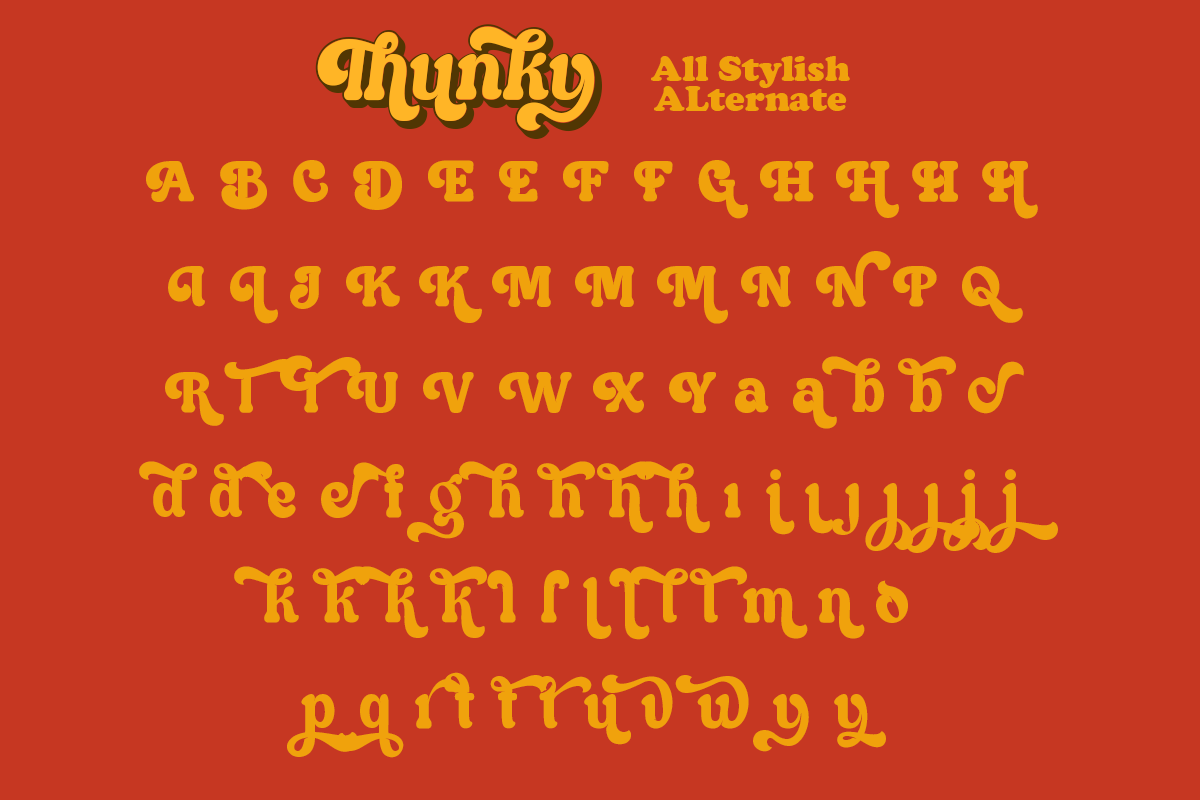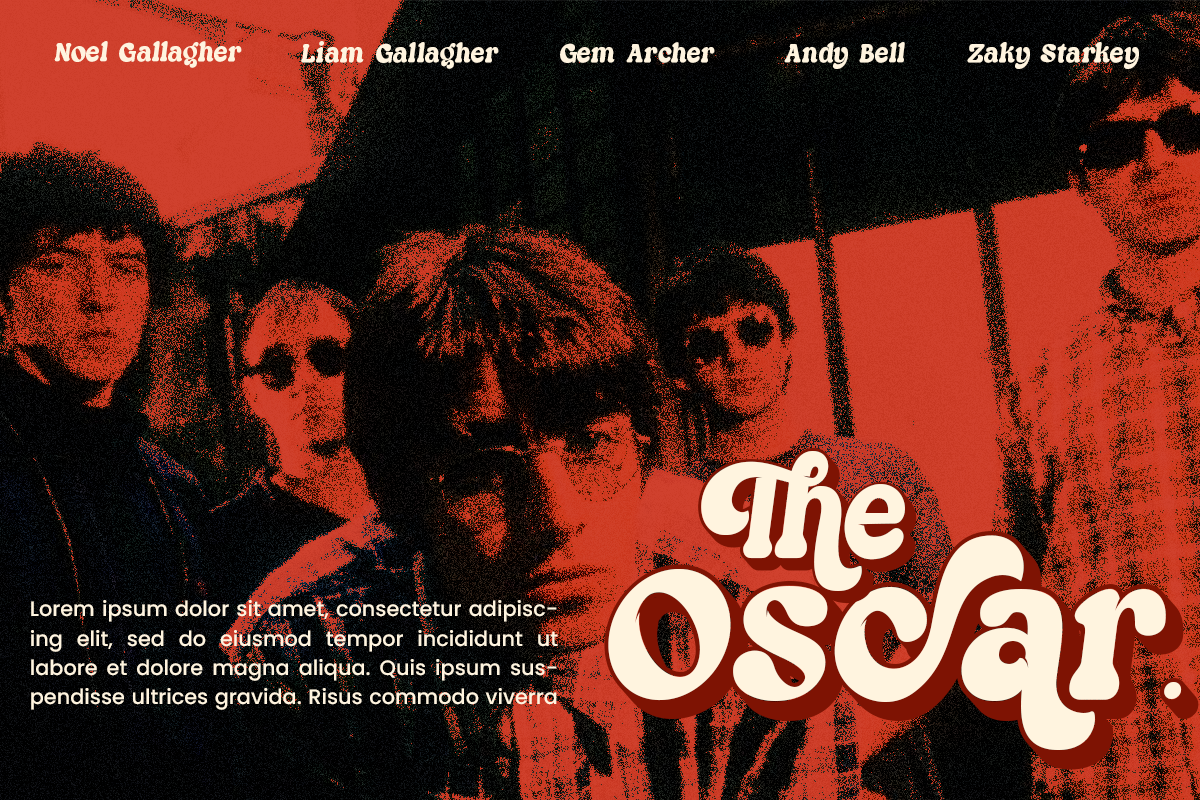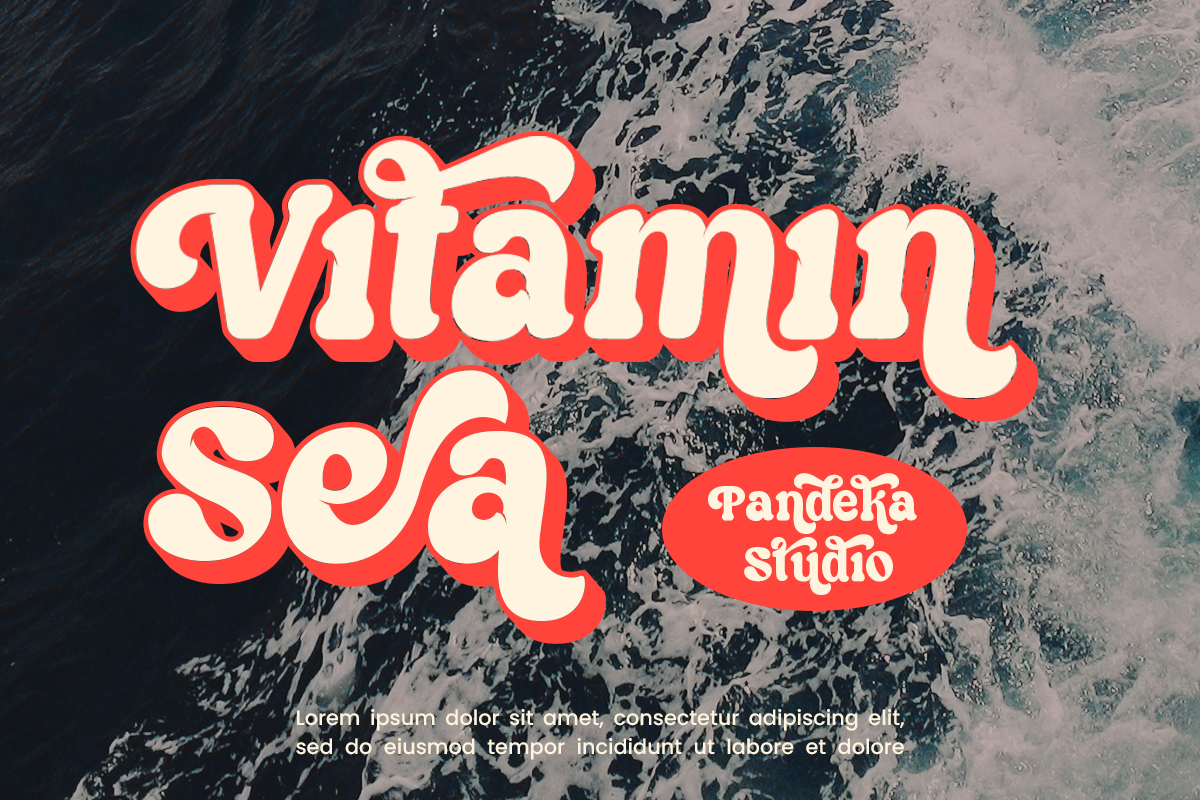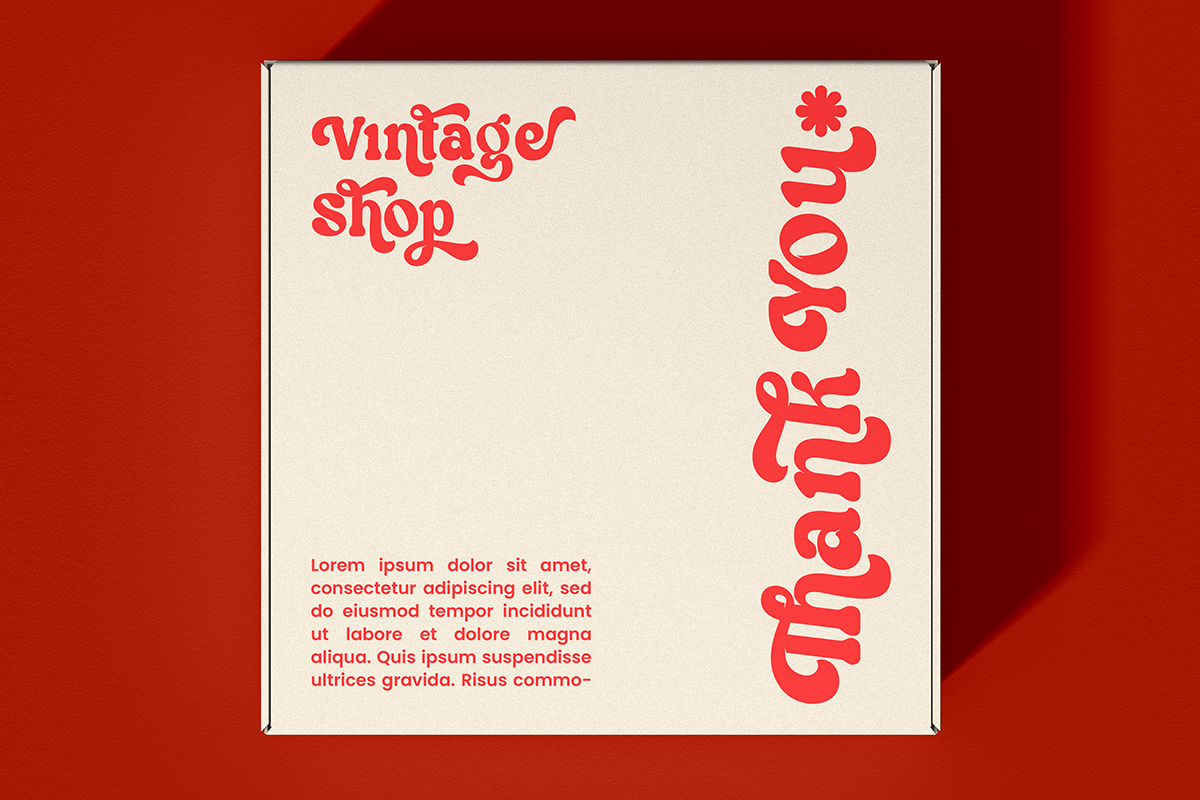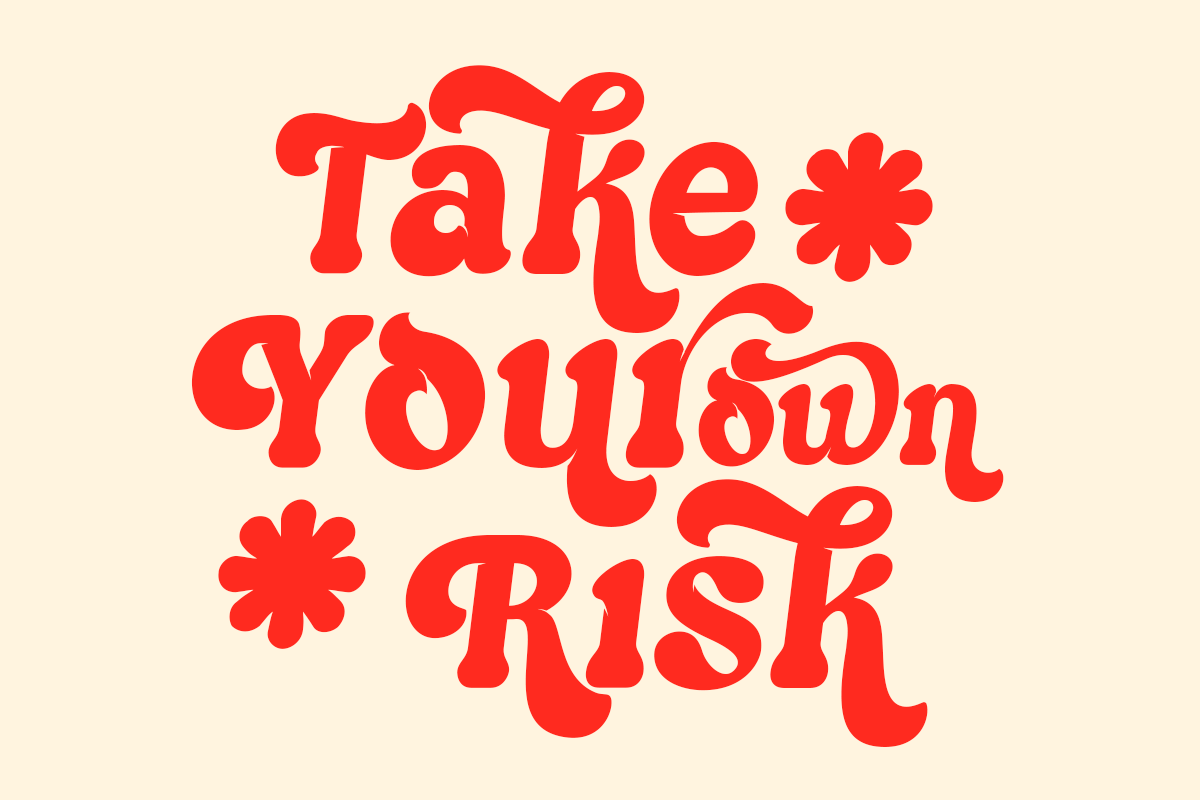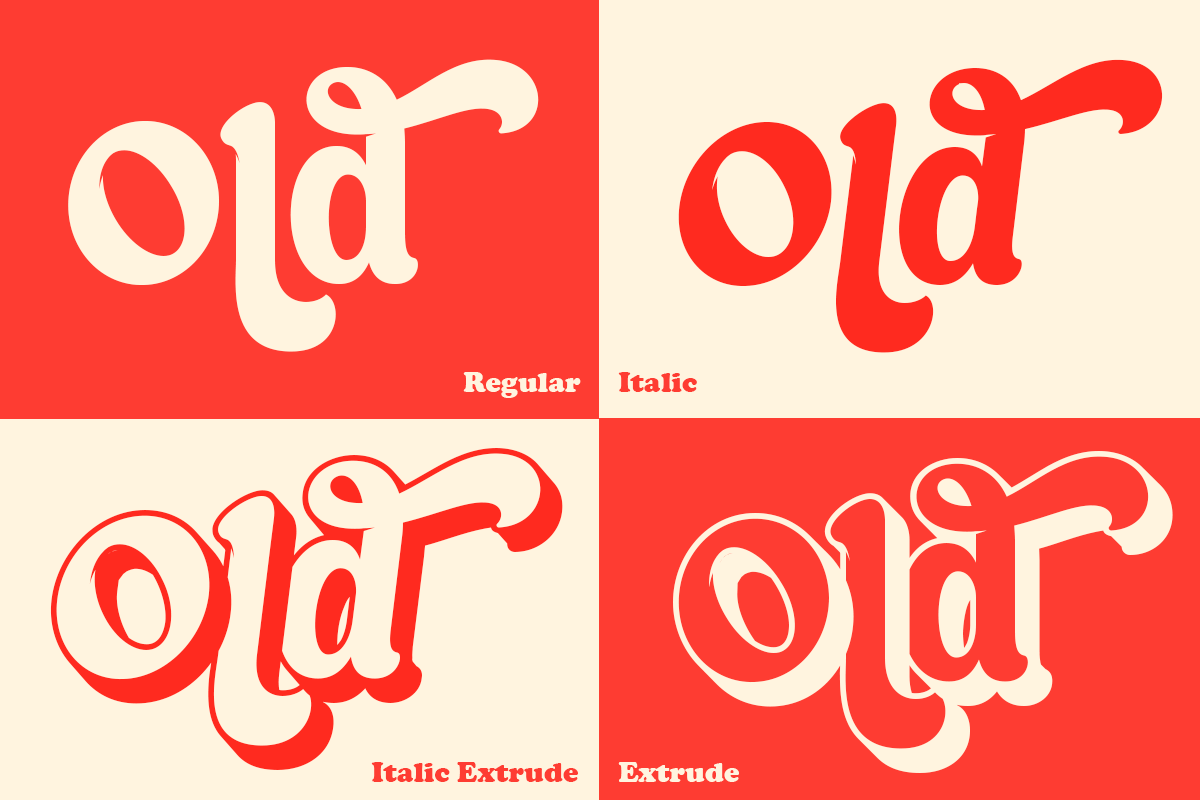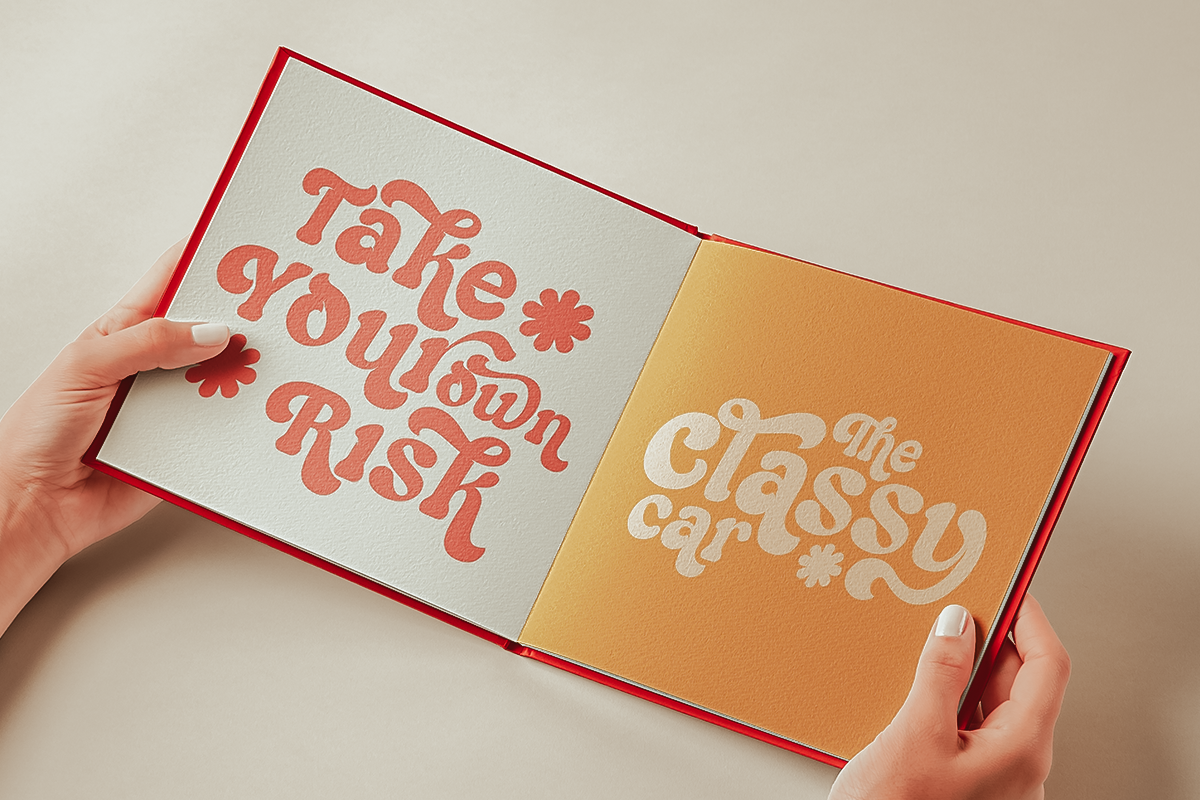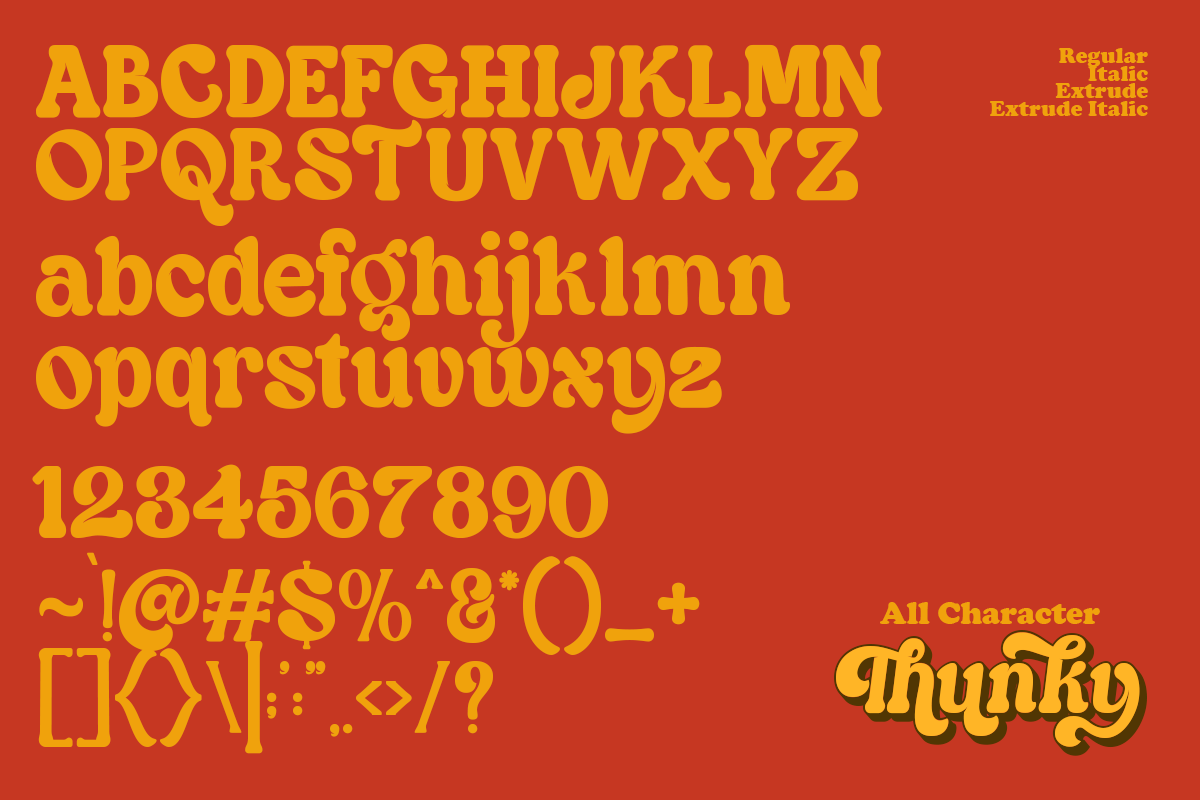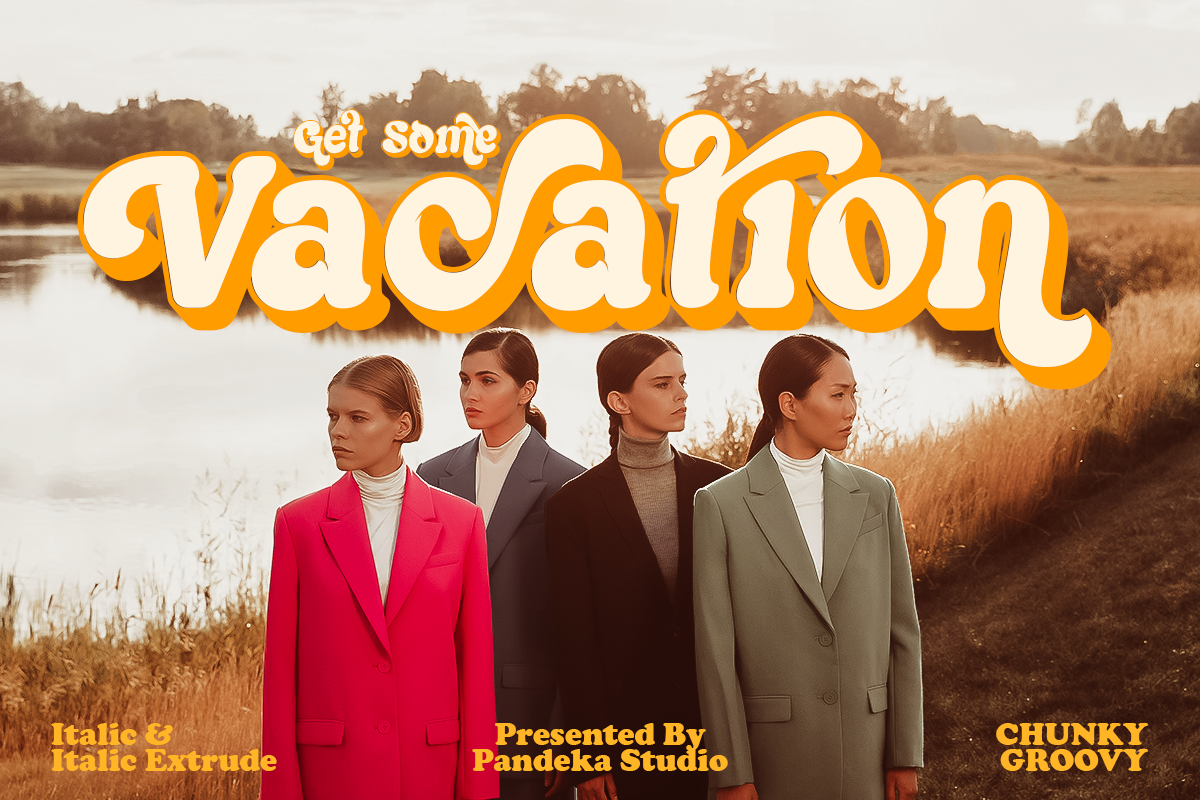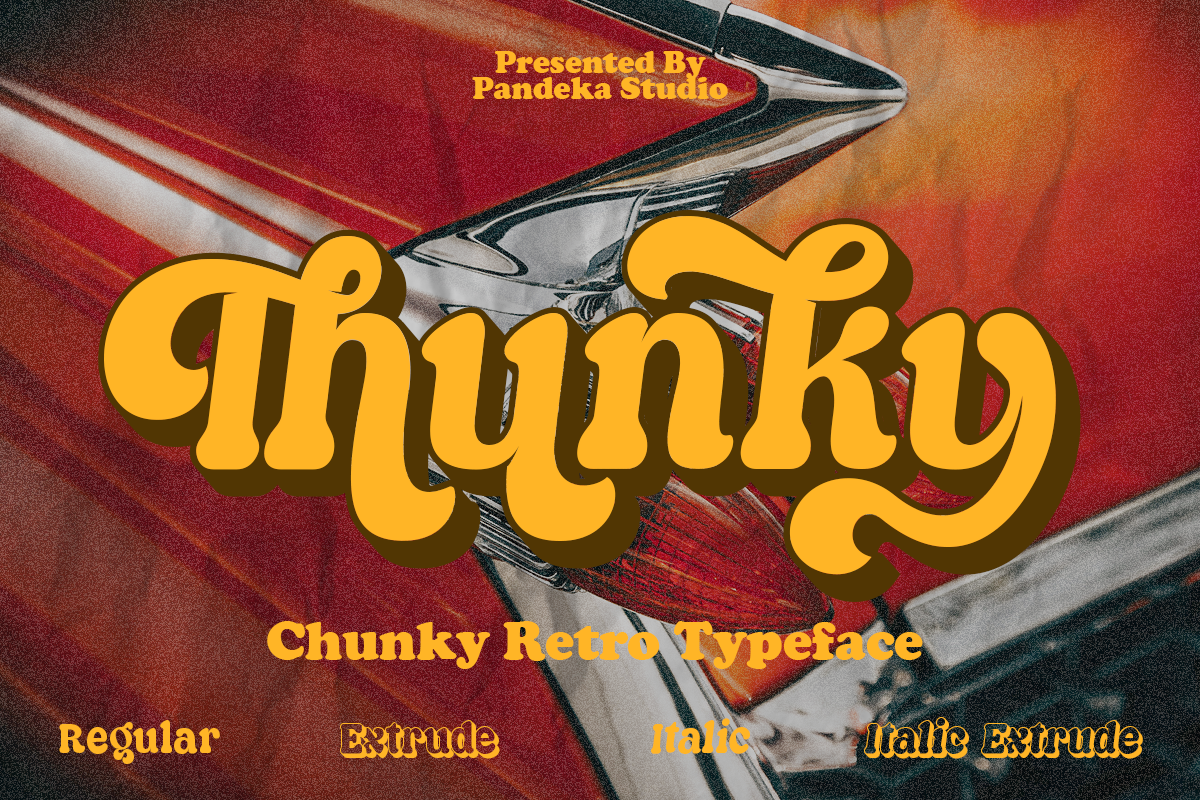
Thunky - Chunky Retro Typeface
Thunky is an homage to the expressive, soft and rounded old-style serif typefaces from the sixties and seventies. Its gentle and juicy serifs give the typeface the right amount of warmth and nostalgia.
Thunky have three types of fonts in this pack, Regular, Extrude, Italic, Extrude Italic version. Use this display font to add that special retro touch to any design idea you can think of
While hinting at the classic Cooper-like style, the reinterpretation features several unconventional letterforms which make both the roman and italic styles remarkably dynamic.
- Regular, Extrude, Italic, Extrude Italic
- Complete Special Alternates